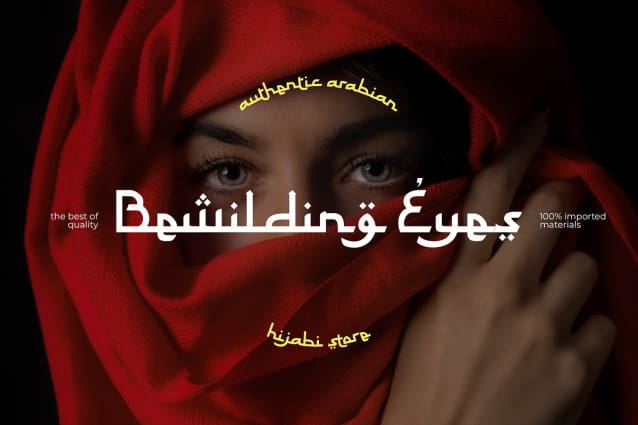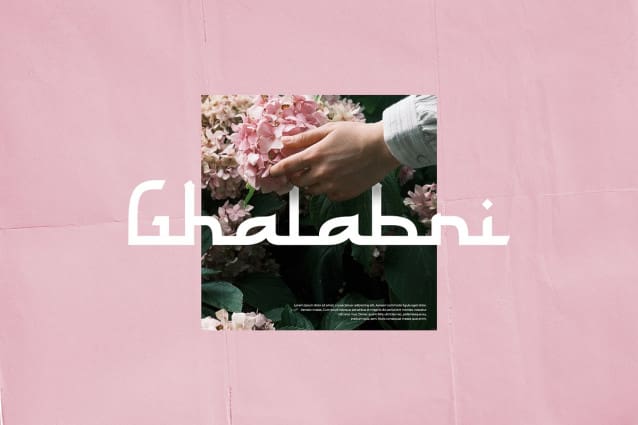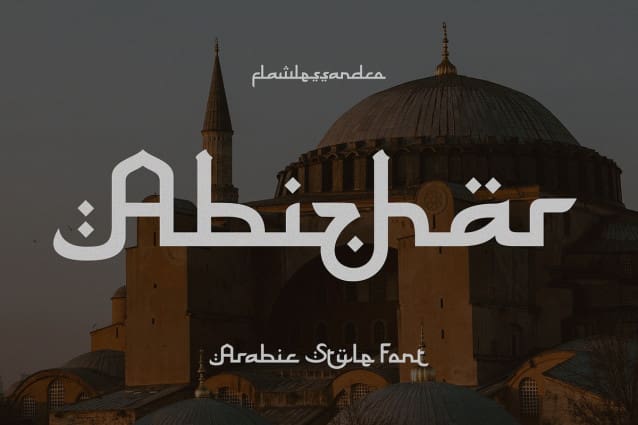
Abizhar Arabic Font
Abizhar Arabic Font by Flawless And Co 14,327 downloads
Abizhar Arabic Font
Abizhar Arabic Font –  Modern Font with Elegant Style is perfect for branding, logos, invitation, master heads, and more.